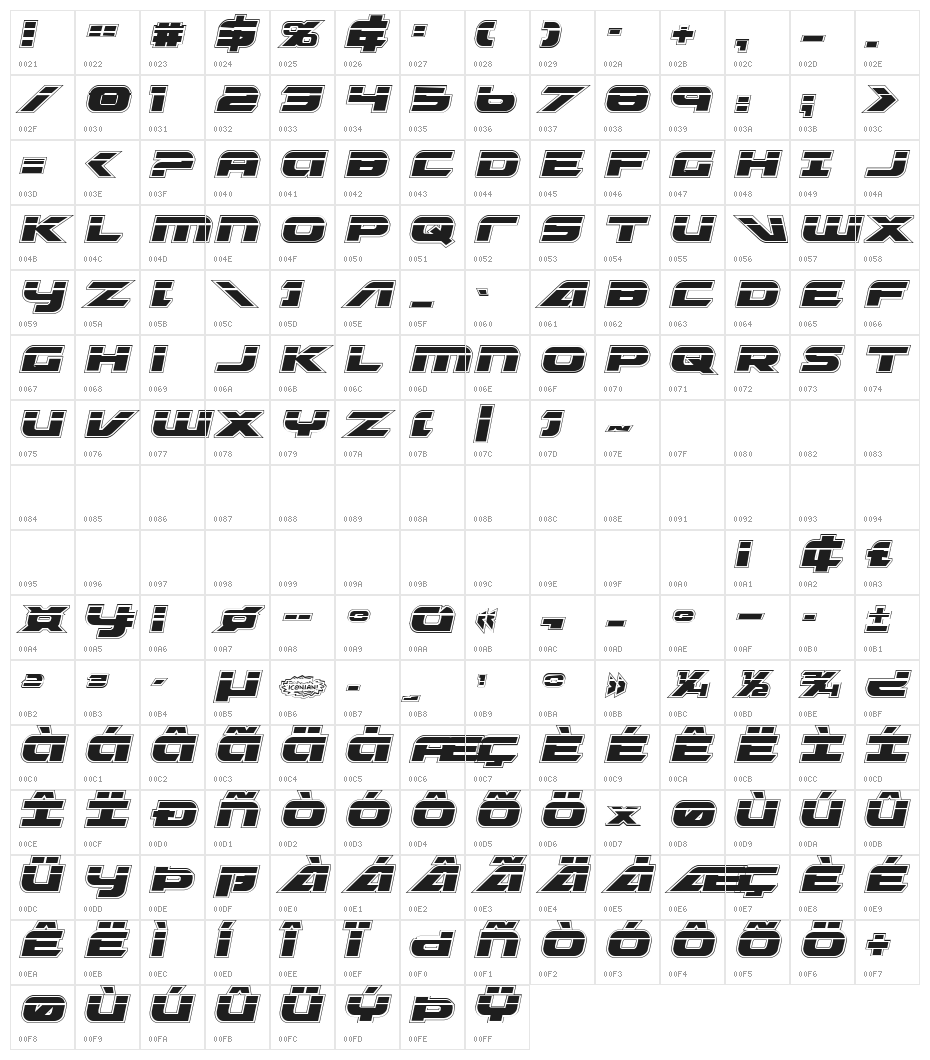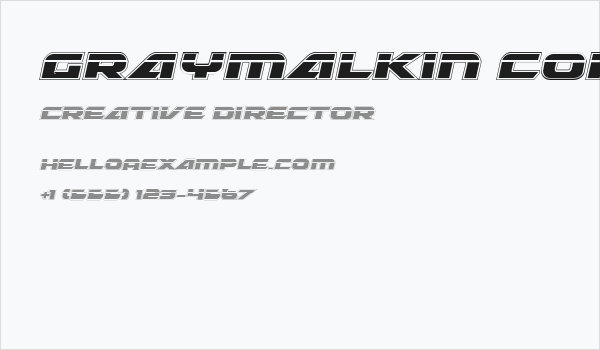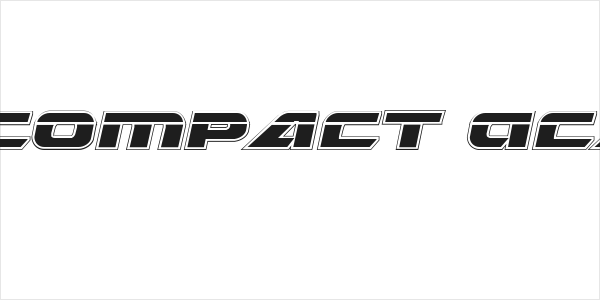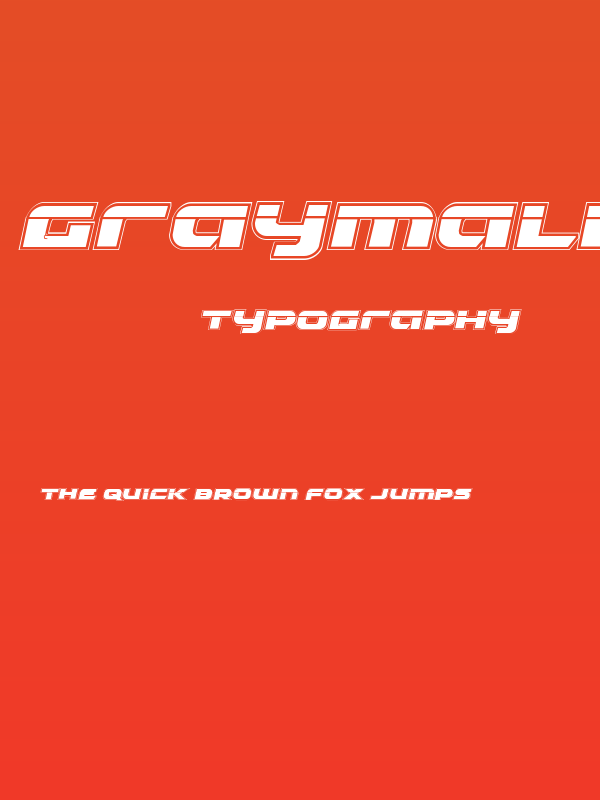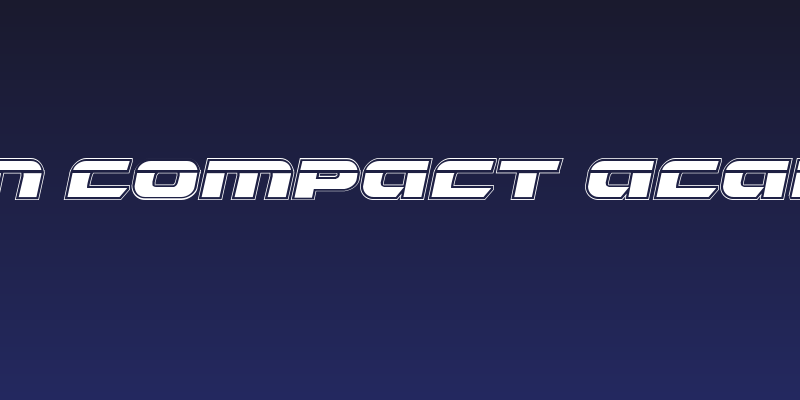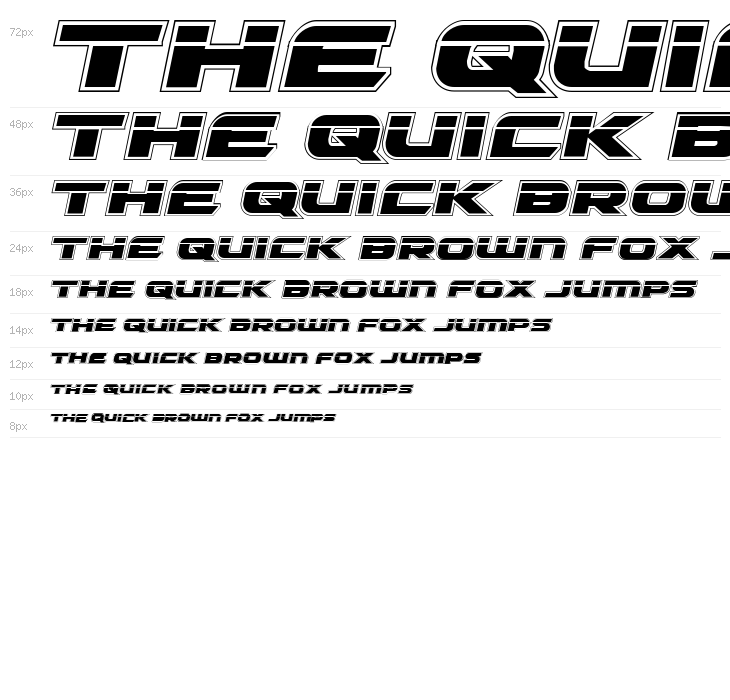
Graymalkin Compact Academy Laser Font
Graymalkin Compact Academy Laser Description
This font features a futuristic and bold design with a distinct geometric style. The characters are outlined with a double-layer effect, creating a sense of depth and dimension. The uppercase and lowercase letters maintain a consistent width, giving the font a compact and uniform appearance. The numbers and special characters follow the same design principles, ensuring a cohesive look across all glyphs. The font's sharp angles and clean lines make it suitable for modern and tech-oriented projects, while its unique style adds a touch of creativity and flair.
| Proposed Projects | Ideal for tech branding, sci-fi posters, video game titles, and modern logos. |